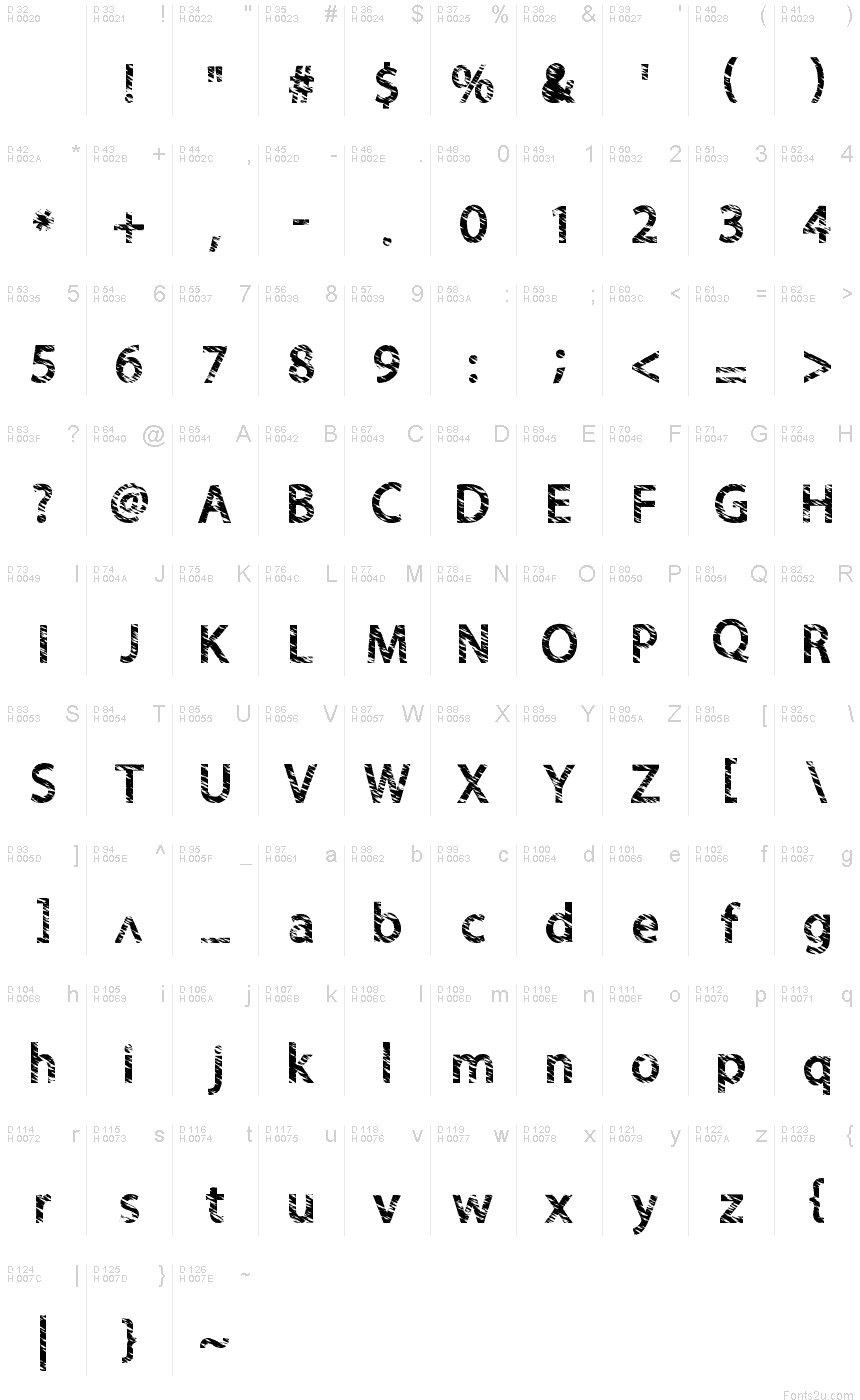
Quick Cut from Xerographer Fonts is a free eroded display font with broad, weighty, tightly fitted sans serif letters. Its dense silhouettes are cut through by clusters of sharp diagonal scratches, producing a fast, abrasive surface rather than soft vintage wear.
The slashed texture can echo torn-paper graphics, rough ink streaks, photocopied collage, and scuffed photographic overlays in large music posters, bold album packaging, and independent streetwear merchandise. Action-game title cards and skate-event branding are equally convincing uses. Across these settings, its strongest territory is high-motion entertainment and extreme-sports graphics built around noise, speed, physical impact, and rough urban surfaces.